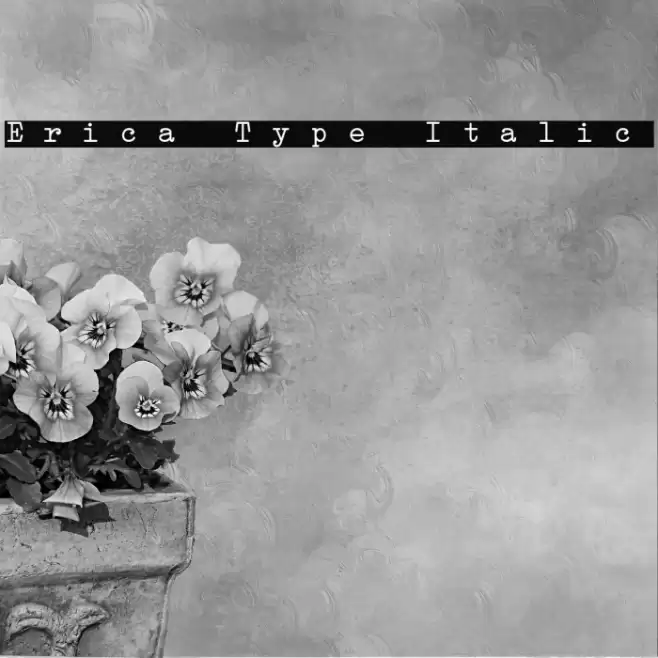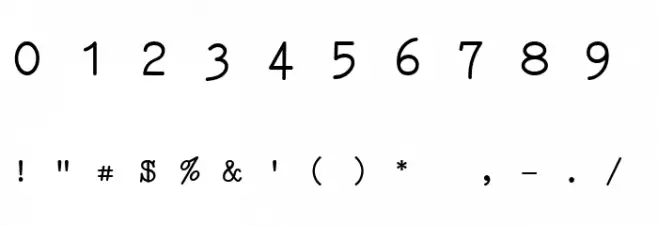
Erica Type Italic Font
Erica Type Italic Description
This typeface features a classic serif design with a slightly modern twist. The characters are well-defined with distinct serifs that provide a traditional feel, yet the overall appearance is clean and contemporary. The uppercase letters are bold and prominent, while the lowercase letters maintain a consistent style with a slightly more delicate structure. The numerals are straightforward and align well with the overall serif theme. Special characters are included, maintaining the same serif style, ensuring consistency across all glyphs. This font is versatile, suitable for both digital and print media, offering readability and elegance.
A classic serif typeface with a modern touch, offering readability and elegance from Uncategorized fonts.
- Proposed Projects: Ideal for editorial design, book covers, formal invitations, and branding materials.
- Overall Style: Classic